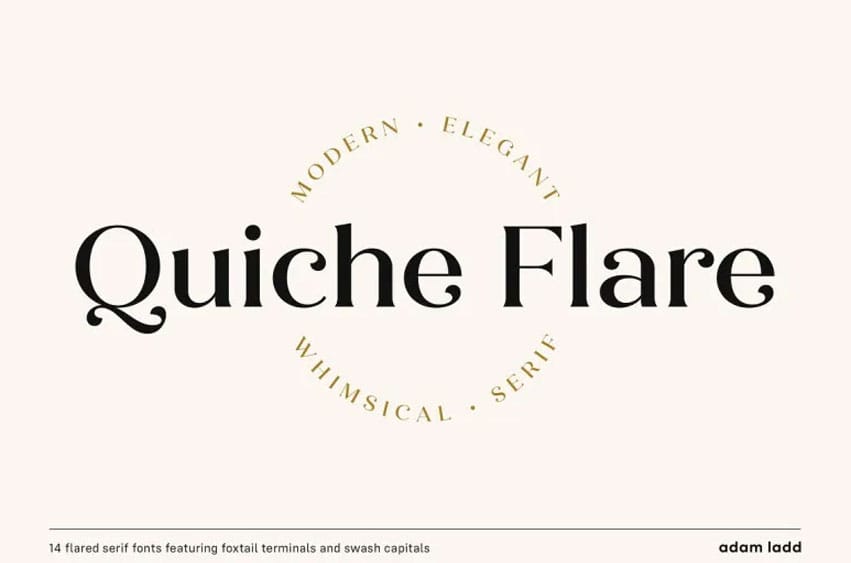
Quiche Flare Font Family 14 is an extremely high contrast typeface featuring flared serifs, foxtail ball terminals with swash capitals, geometric proportions and flared serifs with flared serifs for extra flair. Thin to black weight ranges are available, along with italics making these ideal for printing websites branding advertising packaging magazines labels invitations fashion stationery etc.
Style Description: Elegant with a whimsical edge achieved through foxtail terminals and flared serifs that add beauty, elegance, and movement to the characters. Additionally, an x-height large enough for contemporary and striking presentation is achieved through large letter spacing.